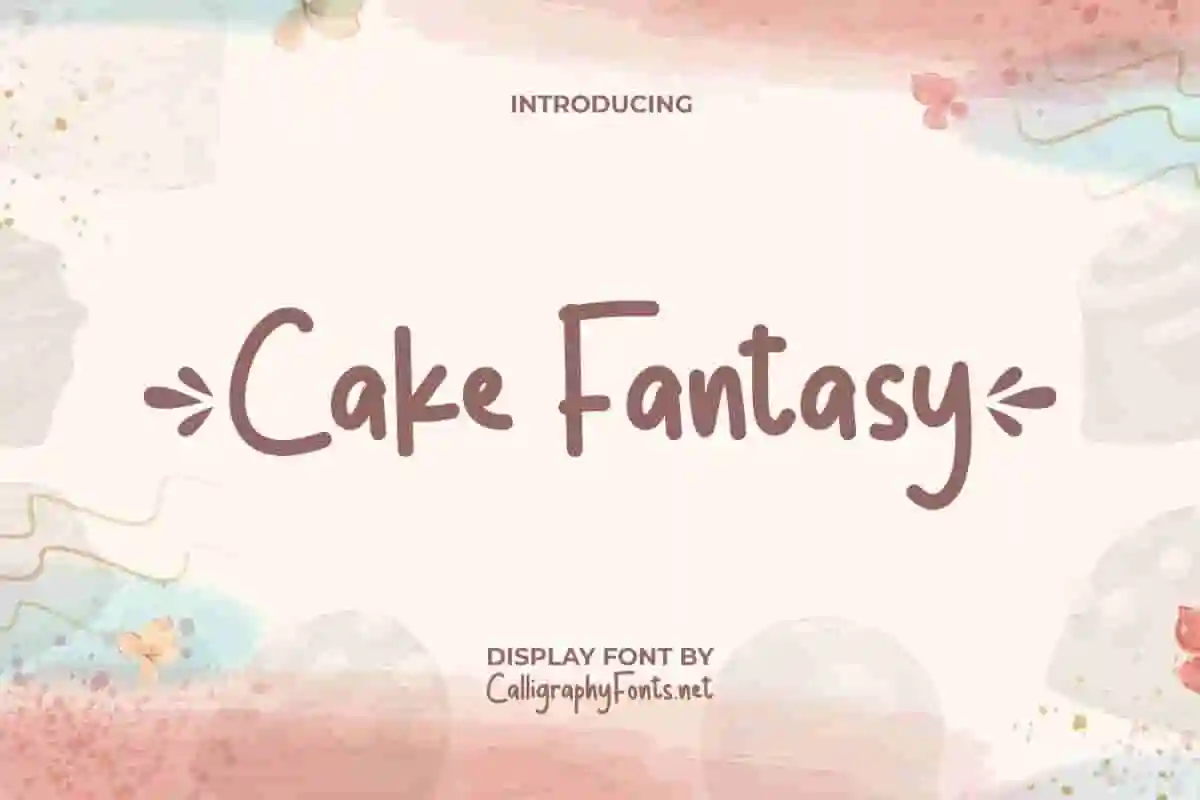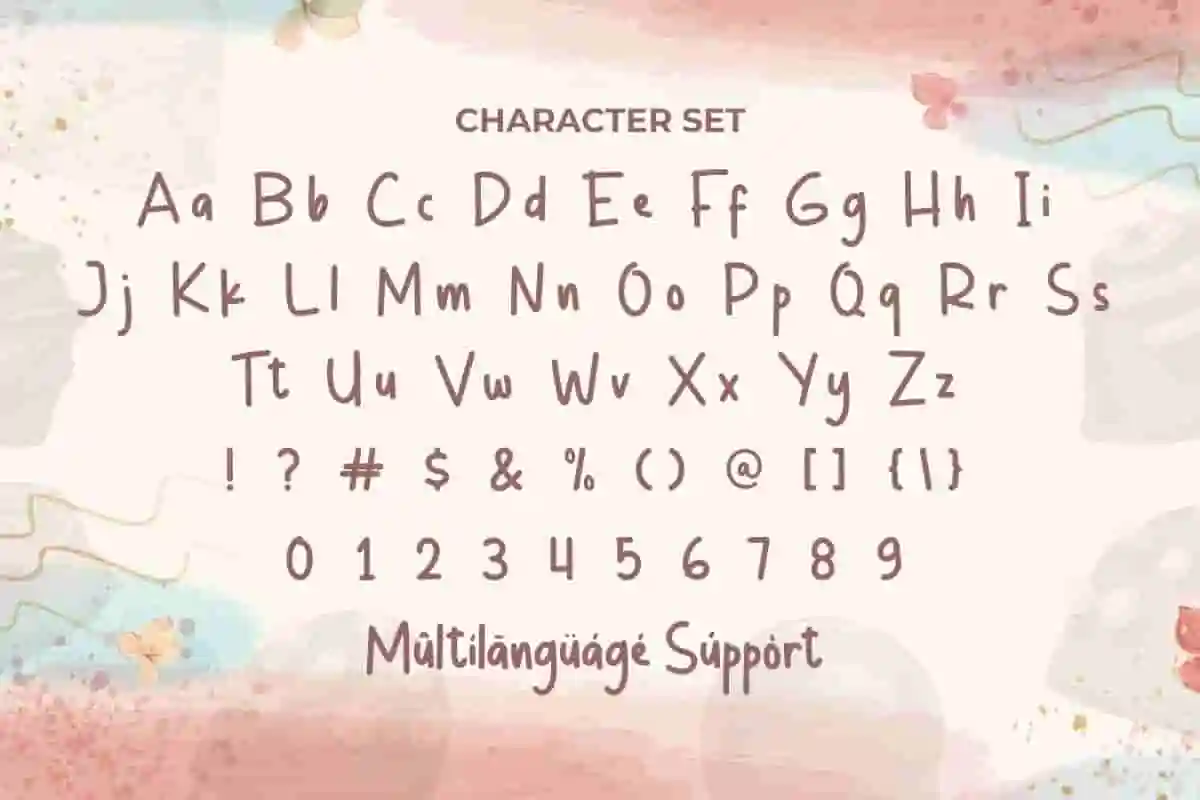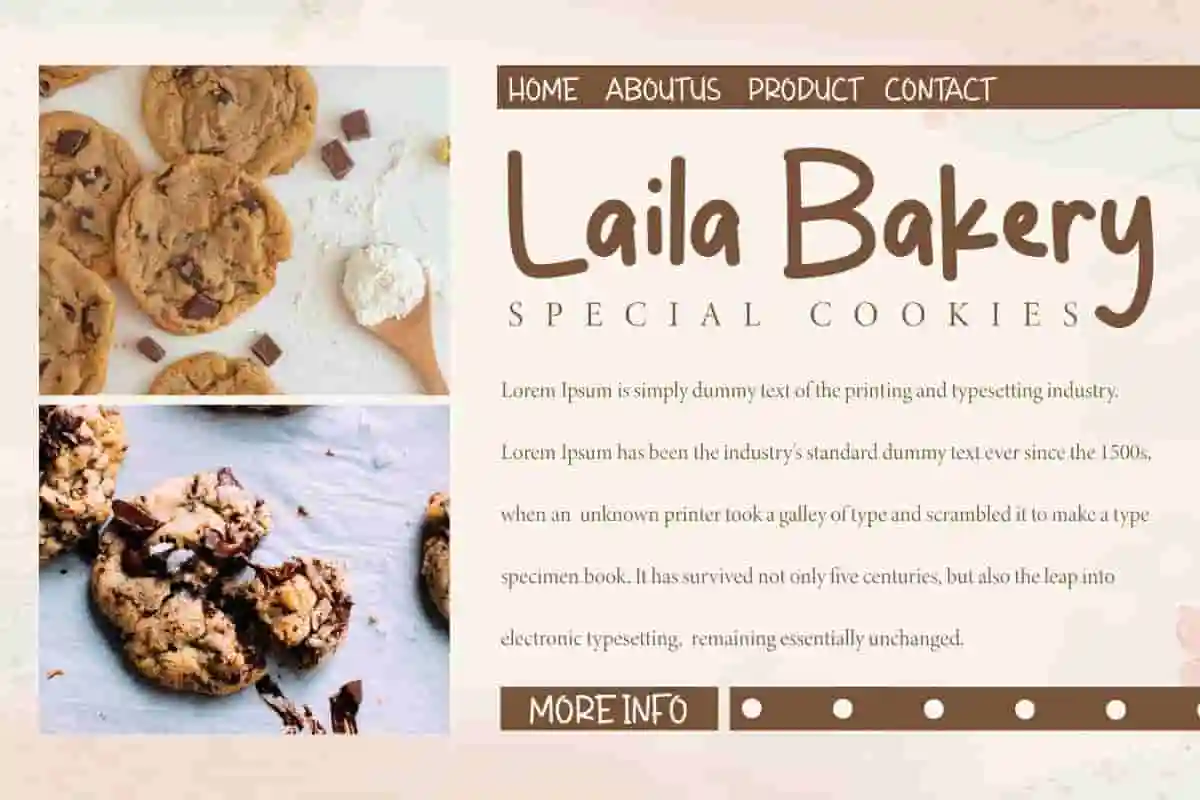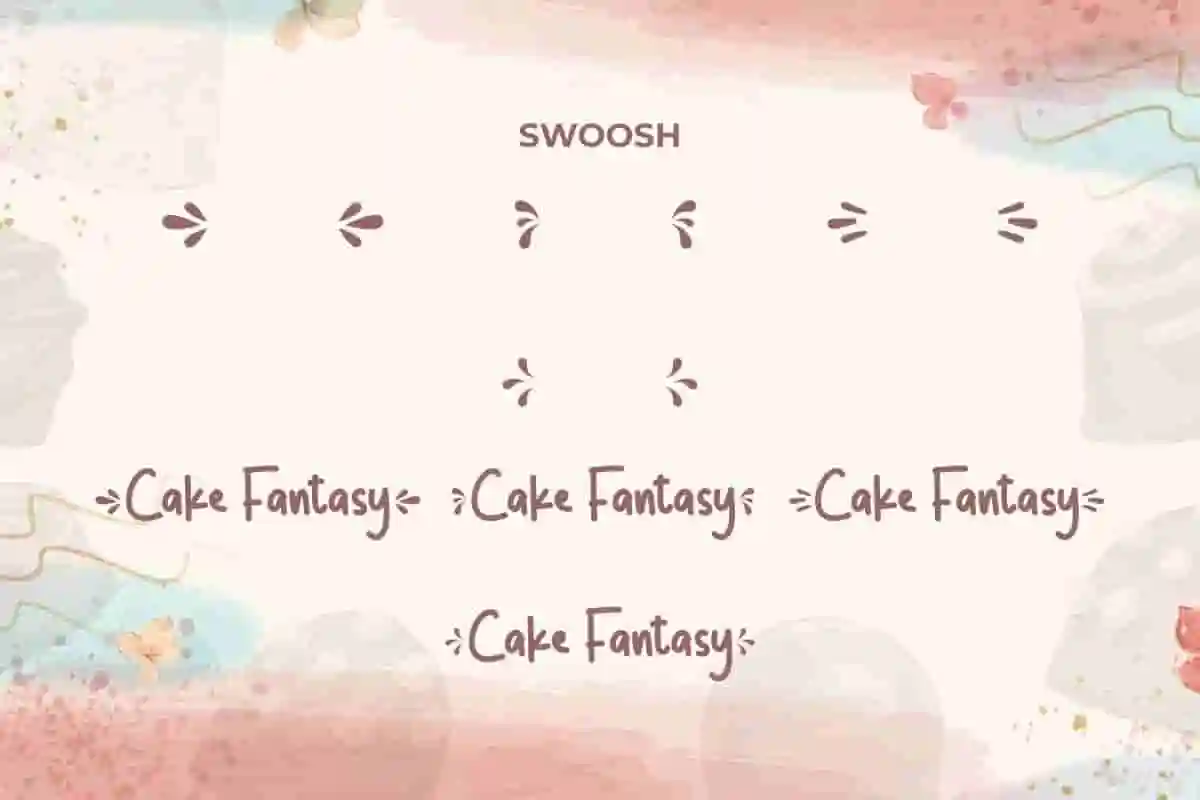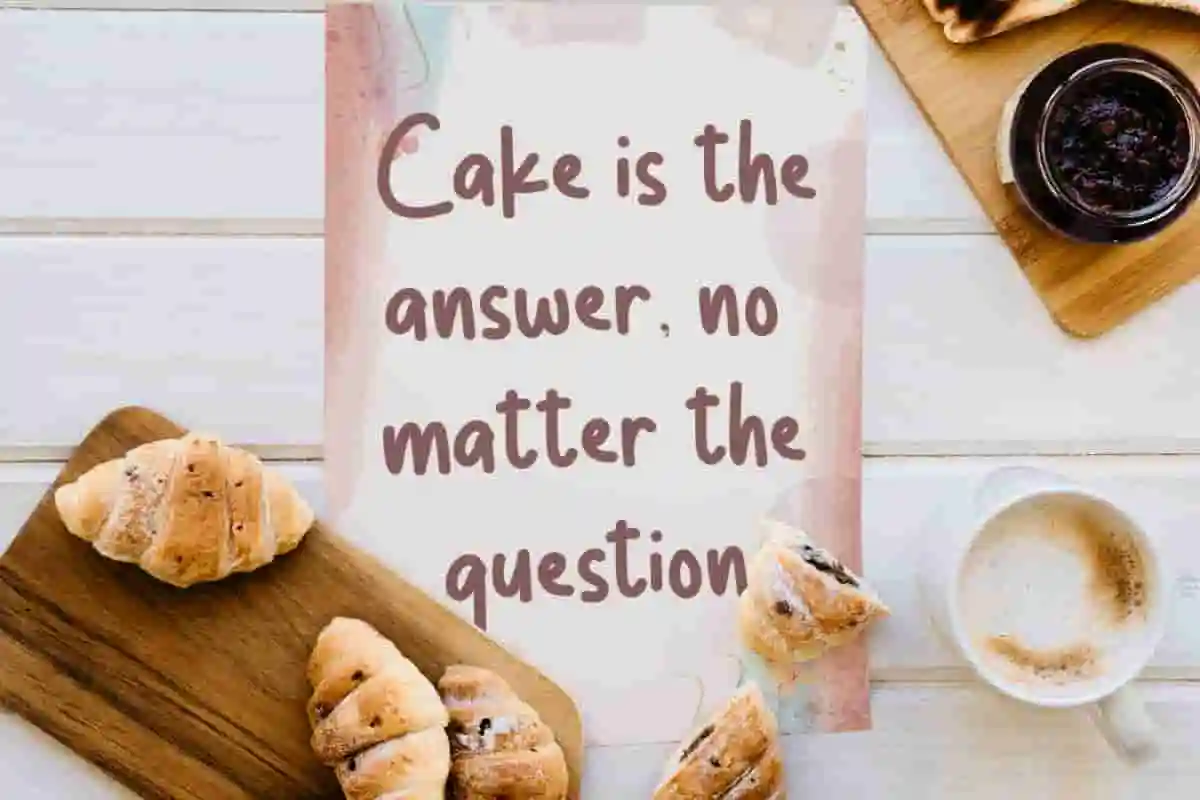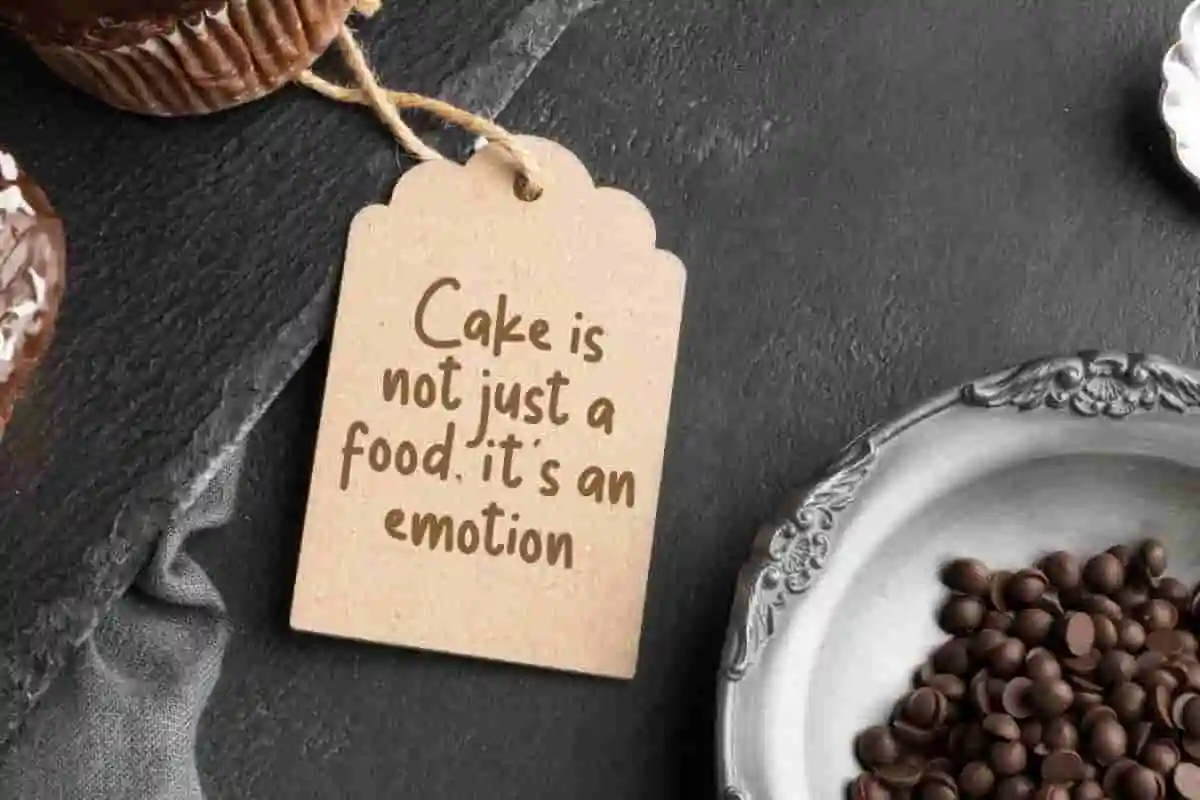
Cake Fantasy Font
Cake Fantasy Font is a sweet monoline handwriting style display font. It gives your designs a natural feel that looks completely handwriting. Useful for branding, packaging, printed materials, social media and typography applications.
Cake Fantasy Font is a sweet display font with a swoosh that will add a personal touch to anything. It’s a handwritten original in the style of a marker. This cute font provides everything you need for comprehensive and cohesive design work, it will be perfect for blogs, book covers, brochure, company signs, headers, labels, logos, quotes, titles, website and more.
Introducing Cake Fantasy Display Font – a sweet, charming, and playful typeface designed to bring your creative projects to life. Just like a beautifully decorated cake, this font is full of delightful curves, soft strokes, and whimsical details that add personality and joy to every design. Whether you’re creating branding for a bakery, café, dessert shop, or designing social media posts, packaging, and invitations, Cake Fantasy Font is your perfect ingredient for success.
With its handwritten, decorative style, Cake Fantasy Display Font adds a magical touch that instantly captures attention. It is versatile enough for logos, posters, menus, greeting cards, and more. Imagine using it for a cupcake label, a birthday invitation, or even a cozy café sign—this font turns ordinary designs into extraordinary creations filled with warmth and charm.
What makes Cake Fantasy Display Font truly special is its balance of elegance and fun. Its rounded edges and playful curves give off a friendly and approachable vibe, while still maintaining professional readability. It pairs beautifully with simple sans serif or serif fonts, making it flexible for both bold headlines and creative body text.
Whether you’re a graphic designer, small business owner, or craft enthusiast, Cake Fantasy Display Font will help you communicate sweetness, creativity, and happiness through your work. Every letter feels like a sprinkle of magic, making your designs unforgettable.
Cake Fantasy Display Font is a casual font with a handwriting style that is here to create the cutest and most beautiful letter designs with added graphic embellishments. The font will be suitable for bakery, baking class, cafeteria, confectioner, graphic design, handicraft, photography, restaurant, sweet food manufacturer and others.
Cake Fantasy Display Font comes with a complete set of Uppercase and Lowercase Basic Characters, Numbers, a large range of Punctuation, Symbols and Swoosh. It is supported with multilingual characters and ready to use both on Windows machine or Mac with simple installations. It’s tested to work well in the Adobe Apps (Illustrator, Adobe InDesign, Adobe Photoshop) CorelDraw, and others. PUA Encode Characters means you can access all the characters easily – Fully accessible without additional design software.